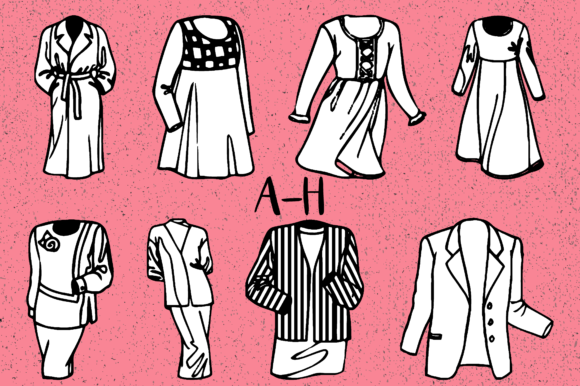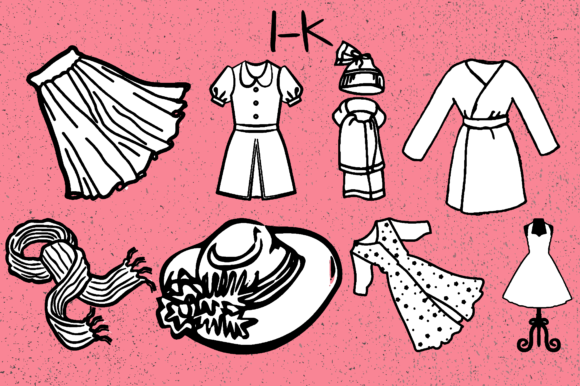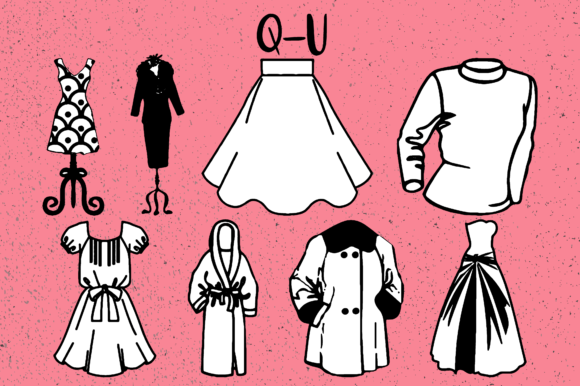
About Girly Stuff Font
Girly Stuff is a charming and delicate dingbats typeface that provides a wide range of girly clothing and accessory elements for your creative projects. Designed specifically for projects targeting a feminine audience or featuring girly themes, this font offers a collection of stylish and adorable glyphs that can enhance the aesthetic value of your designs.
With Girly Stuff, you can easily generate various items such as dresses, shoes, handbags, makeup, jewelry, and more. These elements are perfect for adding a touch of femininity and style to your designs, whether you’re working on digital graphics, branding materials, invitations, or any project that requires a girly touch.
By incorporating Girly Stuff into your designs, you can create visually appealing compositions that resonate with a feminine and fashionable aesthetic. The detailed and carefully designed glyphs allow you to showcase different fashion accessories and clothing items with elegance and charm.
Whether you’re designing for a clothing brand, creating social media graphics, or working on personal crafts, Girly Stuff offers a versatile set of elements to choose from. You can mix and match the glyphs to create unique combinations and customize your designs according to your specific project requirements.
Moreover, Girly Stuff is suitable for various mediums, including digital platforms and print materials. You can utilize this font to enhance website designs, create eye-catching social media posts, or incorporate it into printed materials like posters, stationery, or merchandise. The stylish and girly elements provided by this font will add a delightful touch to any project.
In conclusion, Girly Stuff is a delicate dingbats typeface that empowers you to generate a wide range of girly clothing and accessory elements. By incorporating these charming glyphs into your designs, you can enhance the aesthetic appeal and capture the attention of your target audience. Let Girly Stuff elevate your projects with its fashionable and feminine touch!